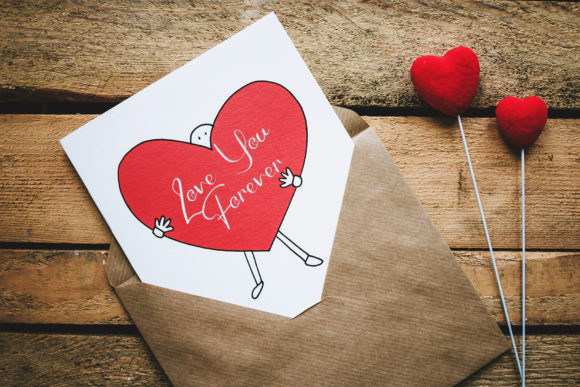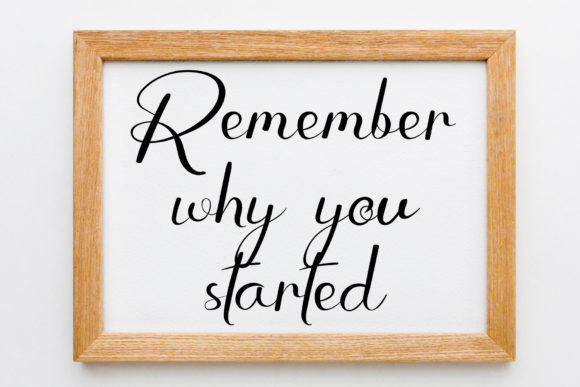
Farmhouse Stickers Font
db-ku.com - Script & Handwritten -- Farmhouse Stickers is a delicate and elegant handwritten font. Its distinct and well balanced letters make this font a masterpiece. Fall in love with its incredibly versatile style and use it to create spectacular designs!